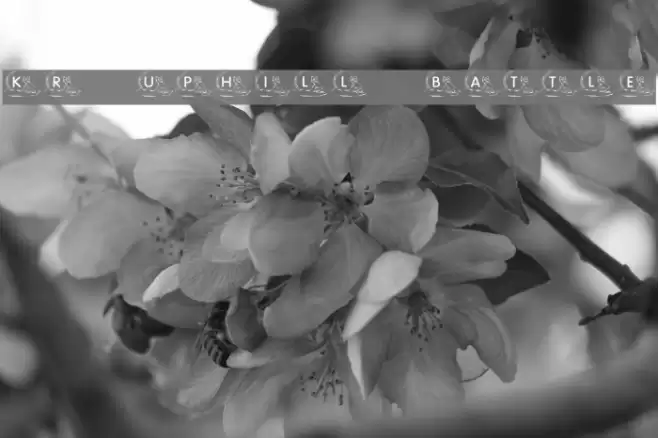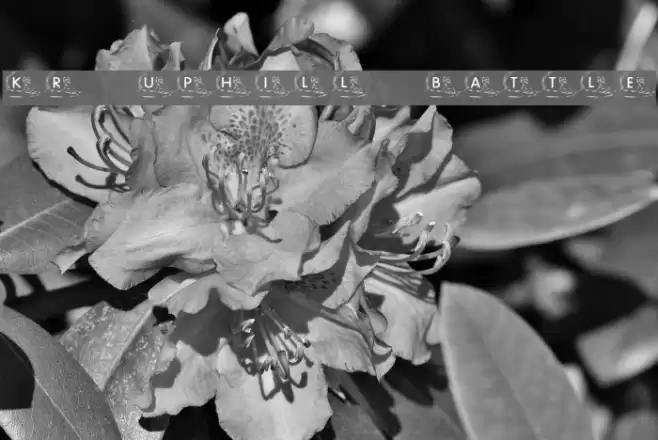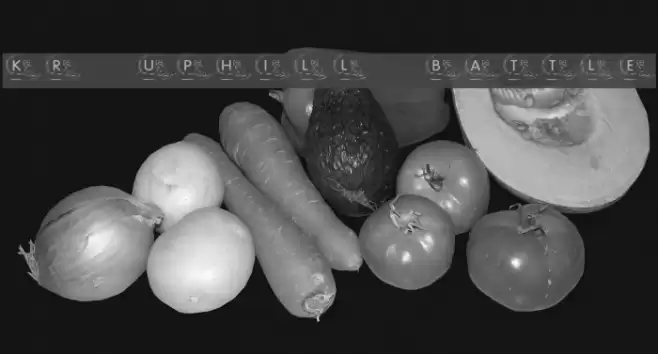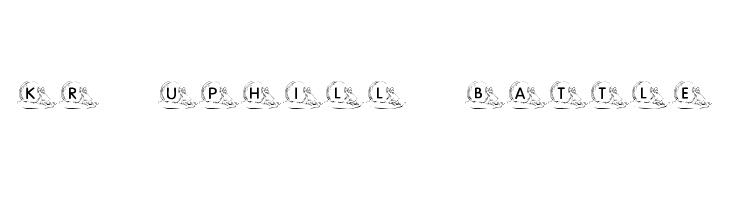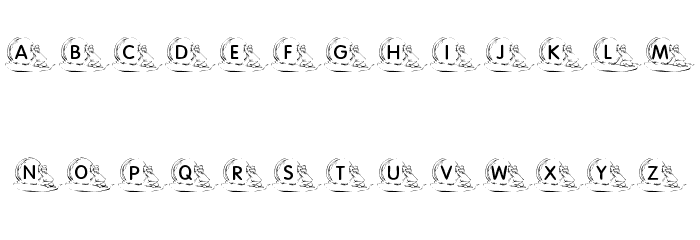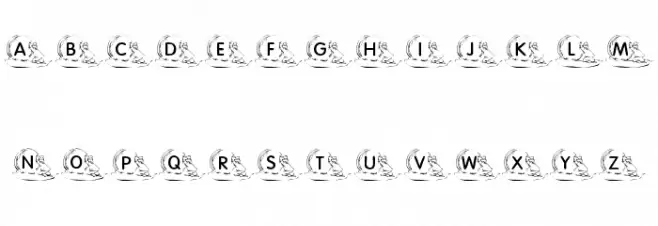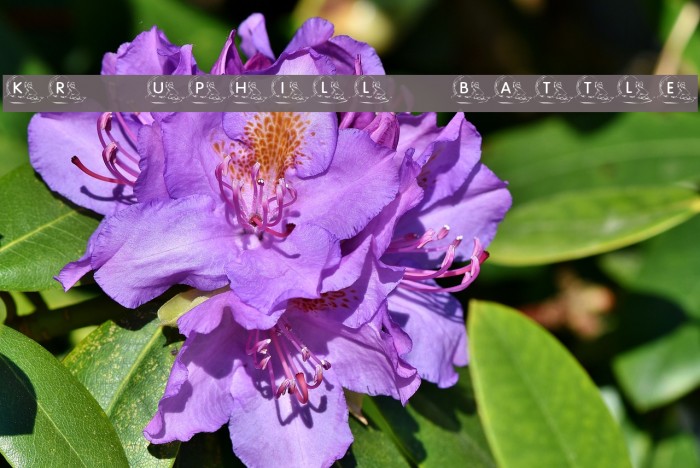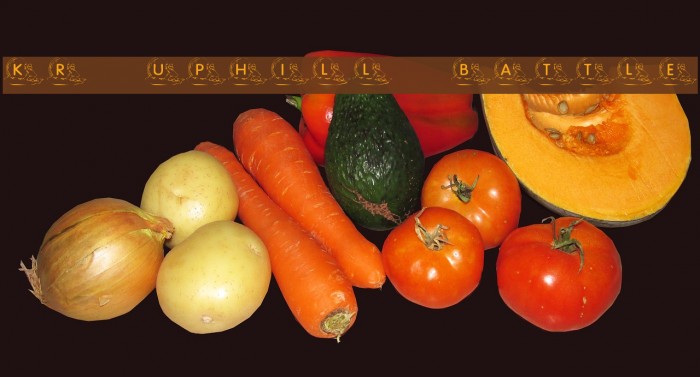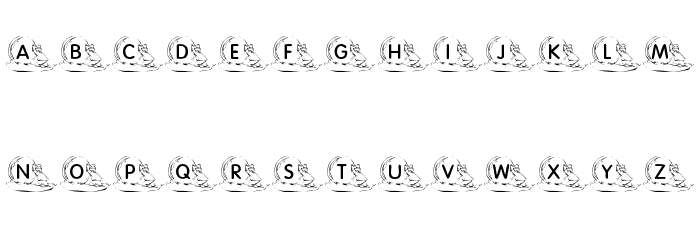
KR Uphill Battle Font
KR Uphill Battle Description
This decorative font features each letter encased in a circular design with a whimsical frog illustration perched on the side. The letters themselves are bold and clear, providing a striking contrast against the intricate background. This playful and unique style adds a touch of fantasy and charm, making it ideal for creative projects. The overall appearance is both artistic and engaging, capturing attention with its imaginative design. The font's distinctiveness lies in its combination of bold typography and detailed illustrations, offering a visually appealing and memorable experience.
A decorative font with bold letters and whimsical frog illustrations from Uncategorized fonts.
- Proposed Projects: Ideal for children's books, fantasy-themed invitations, playful branding, and creative posters.